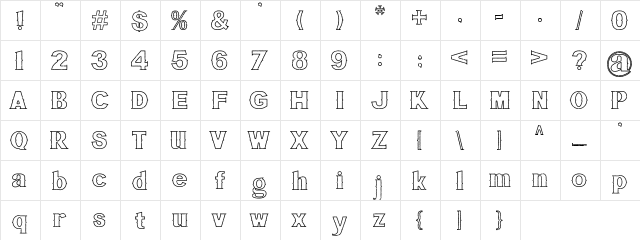
Bluegrass OUTLINE Regular
| Foundry | Cruzine Design |
| Designer | Cruzine Design |
Design Context for Bluegrass OUTLINE Typeface
Bluegrass OUTLINE brings ornamental detail and strong personality to headlines and identities, where visual impact matters more than quiet functionality.
Font Pairing: Pair with a clean neutral sans-serif for body copy to let Bluegrass OUTLINE's character lead without overwhelming the composition.
Pro Tip: Treat Bluegrass OUTLINE as the centrepiece of your typographic hierarchy. One strong heading set in a decorative face can carry an entire layout.